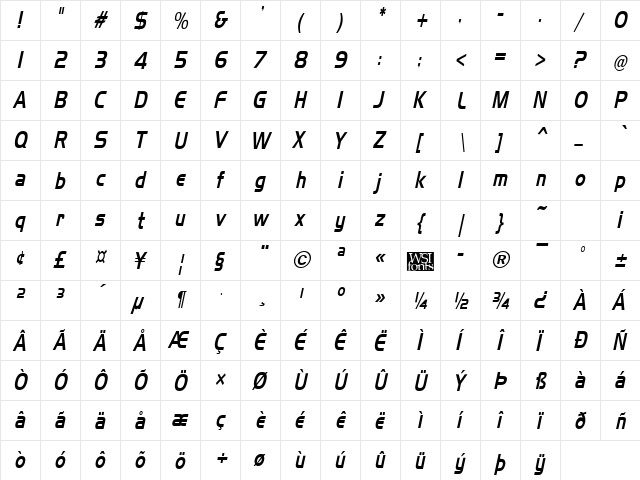
Slickerest kursiv
Design Context for Slickerest Typeface
Slickerest is a composed and adaptable typeface that performs quietly and consistently across a wide range of design contexts. The dynamic lean of this cut emphasises speed and emphasis in any layout.
Pro Tip: Try Slickerest for annotation and caption copy alongside an upright companion — the contrast in angle creates a dynamic but ordered typographic system.